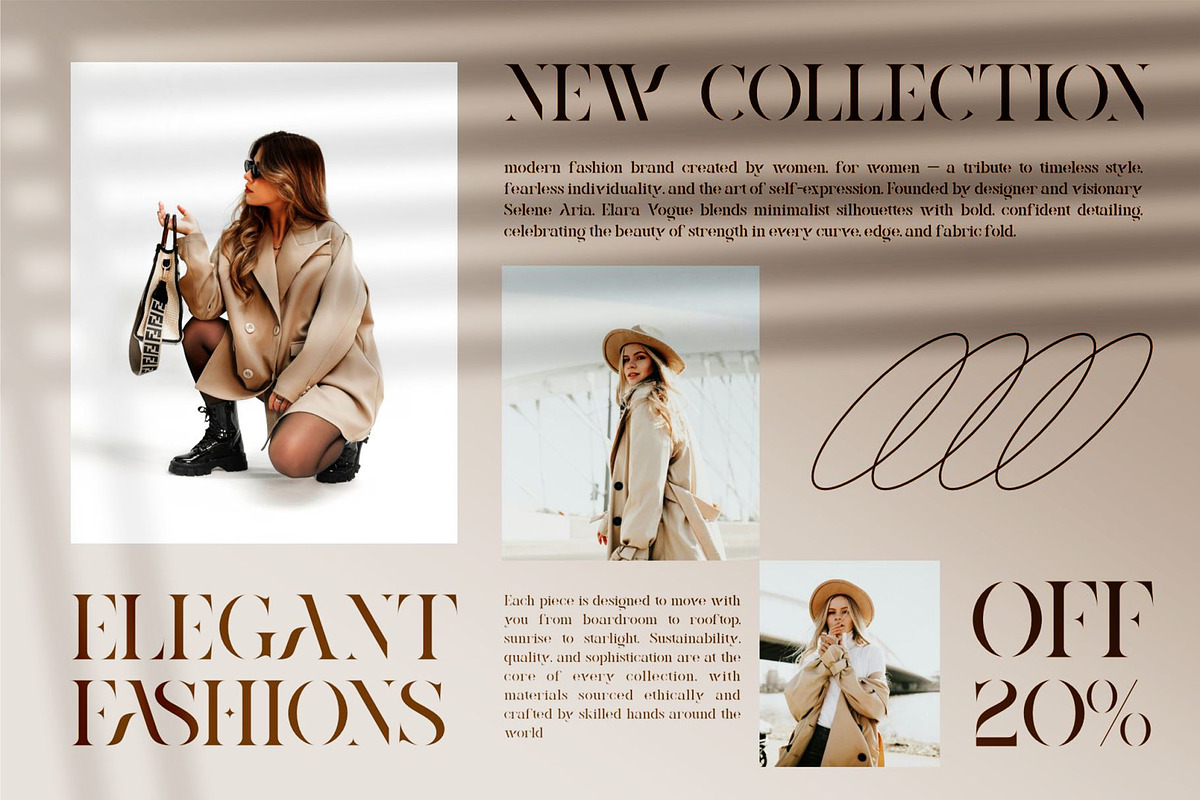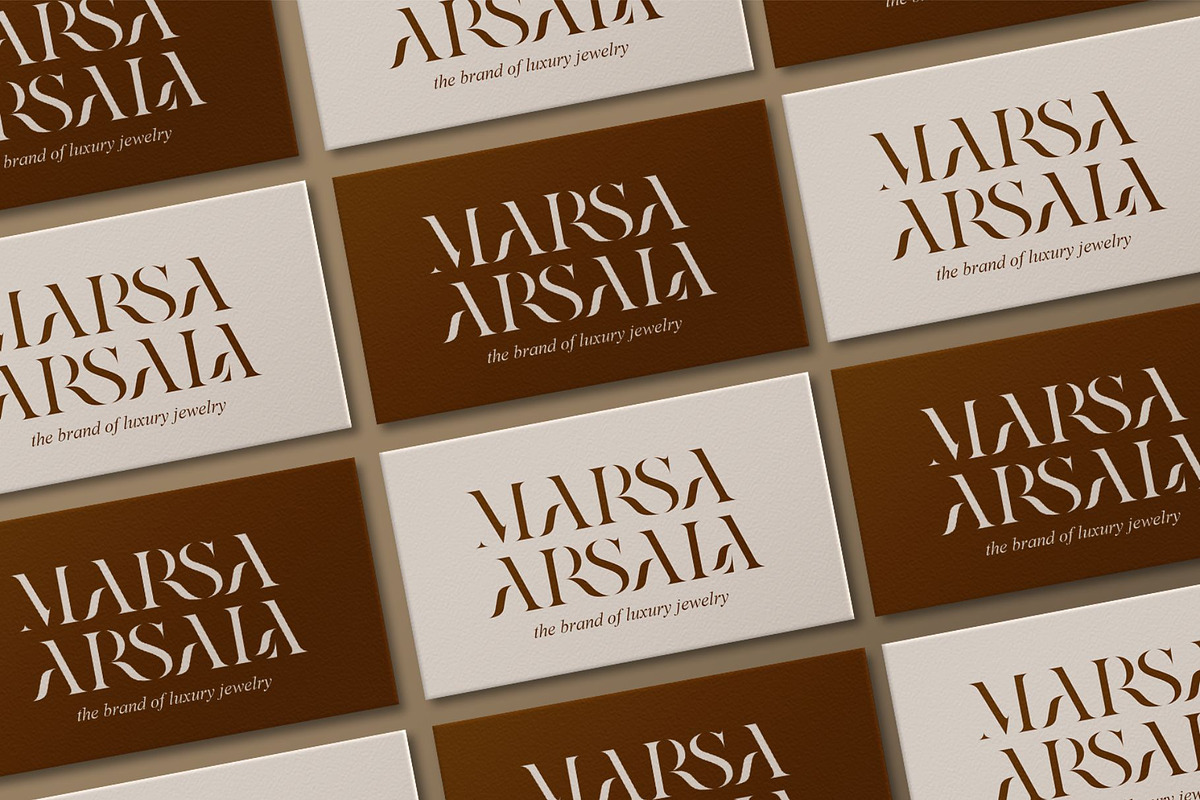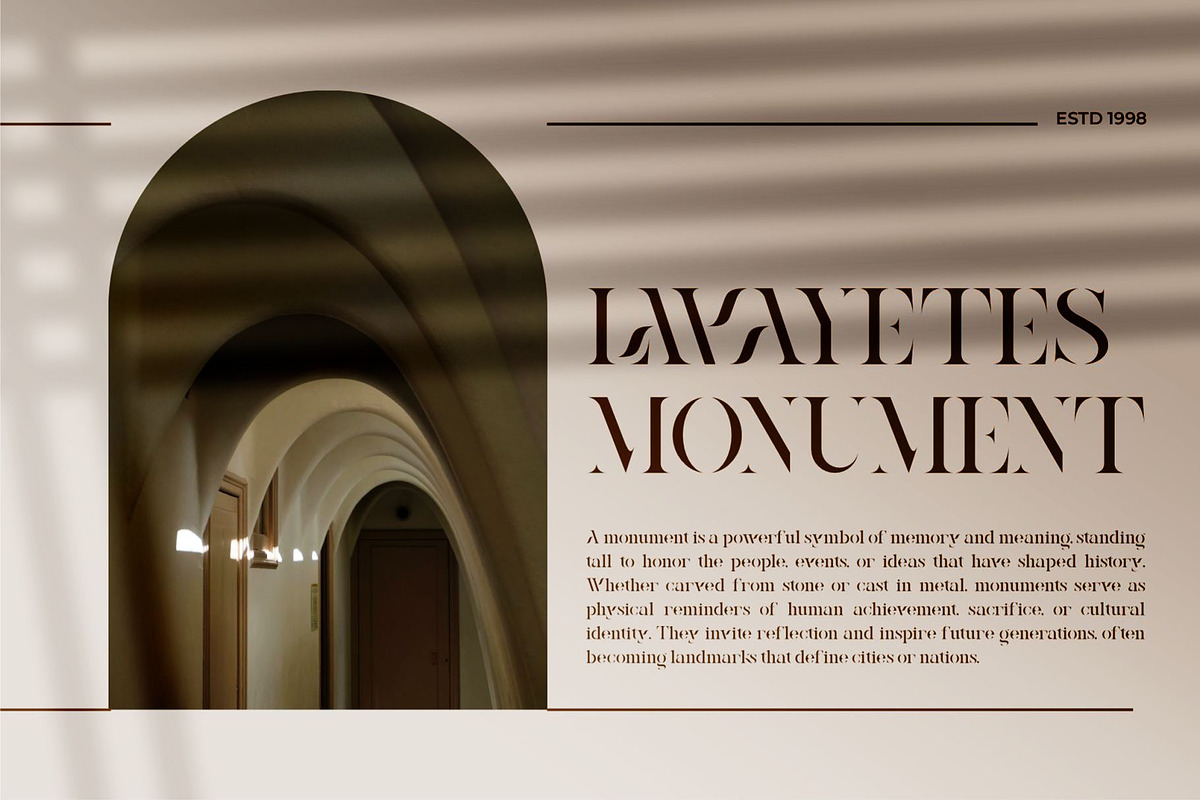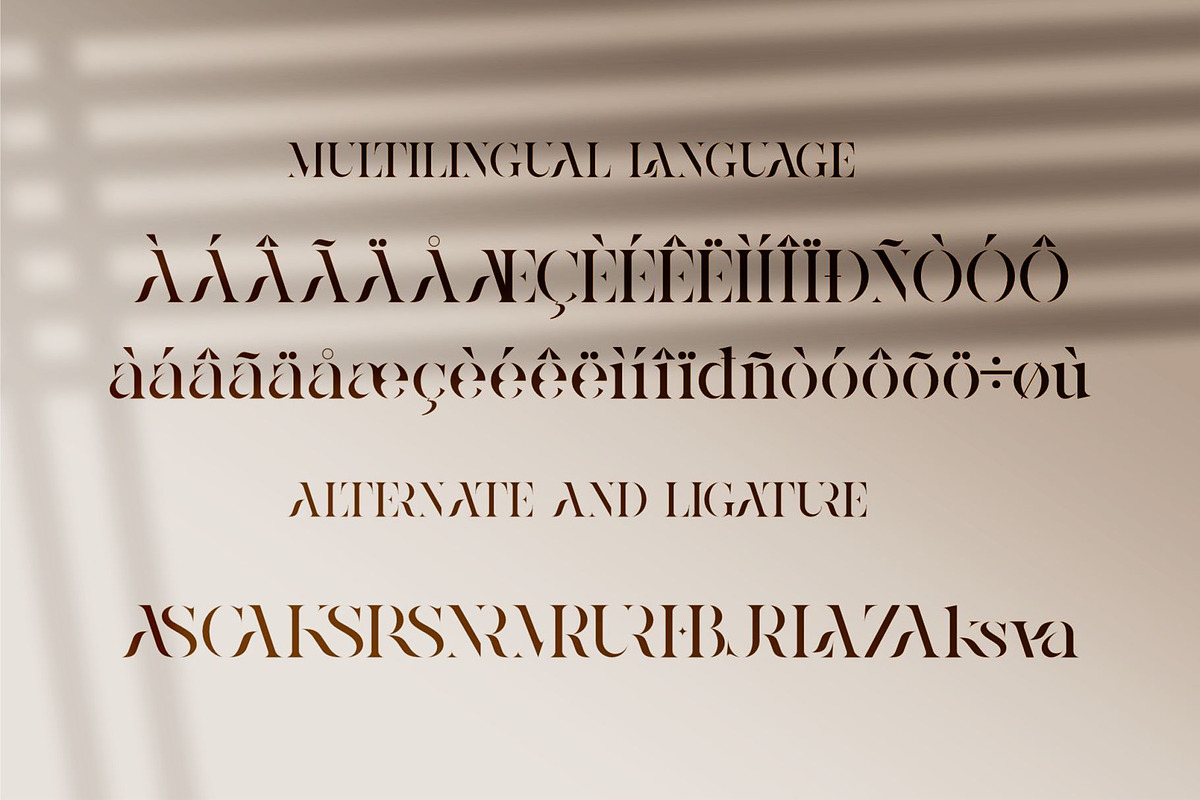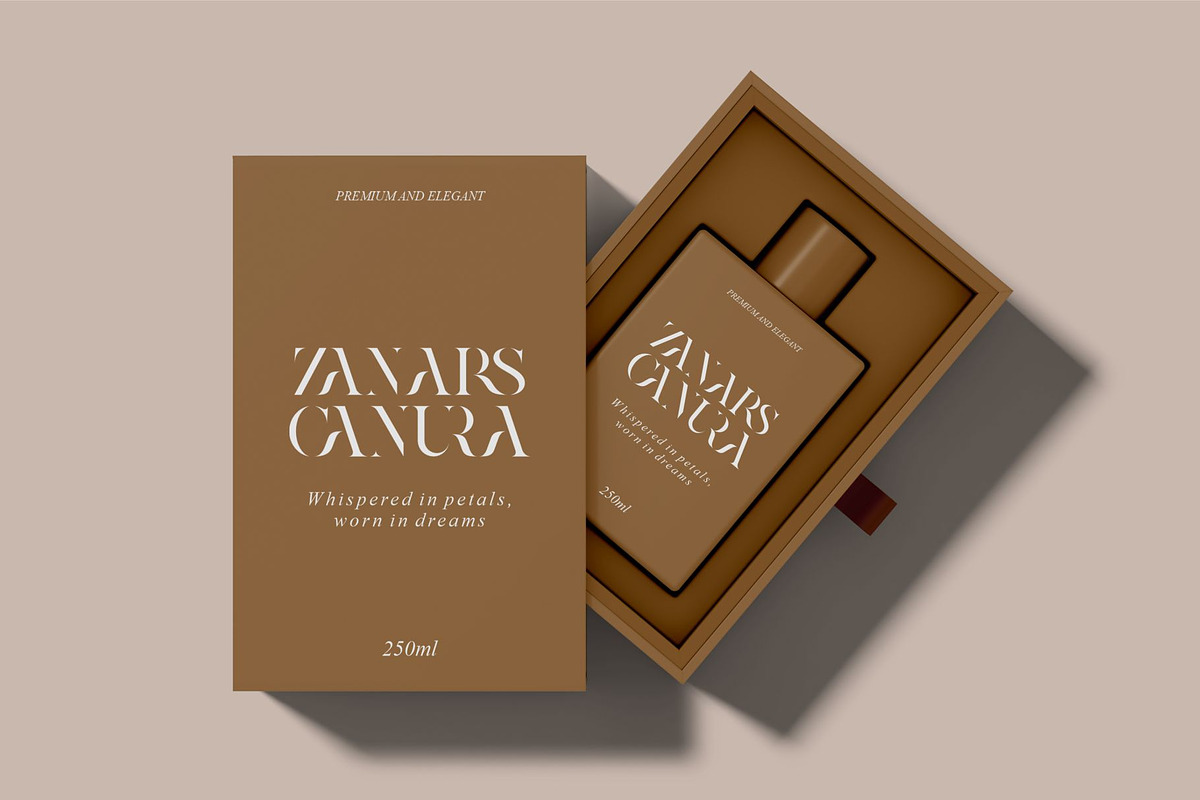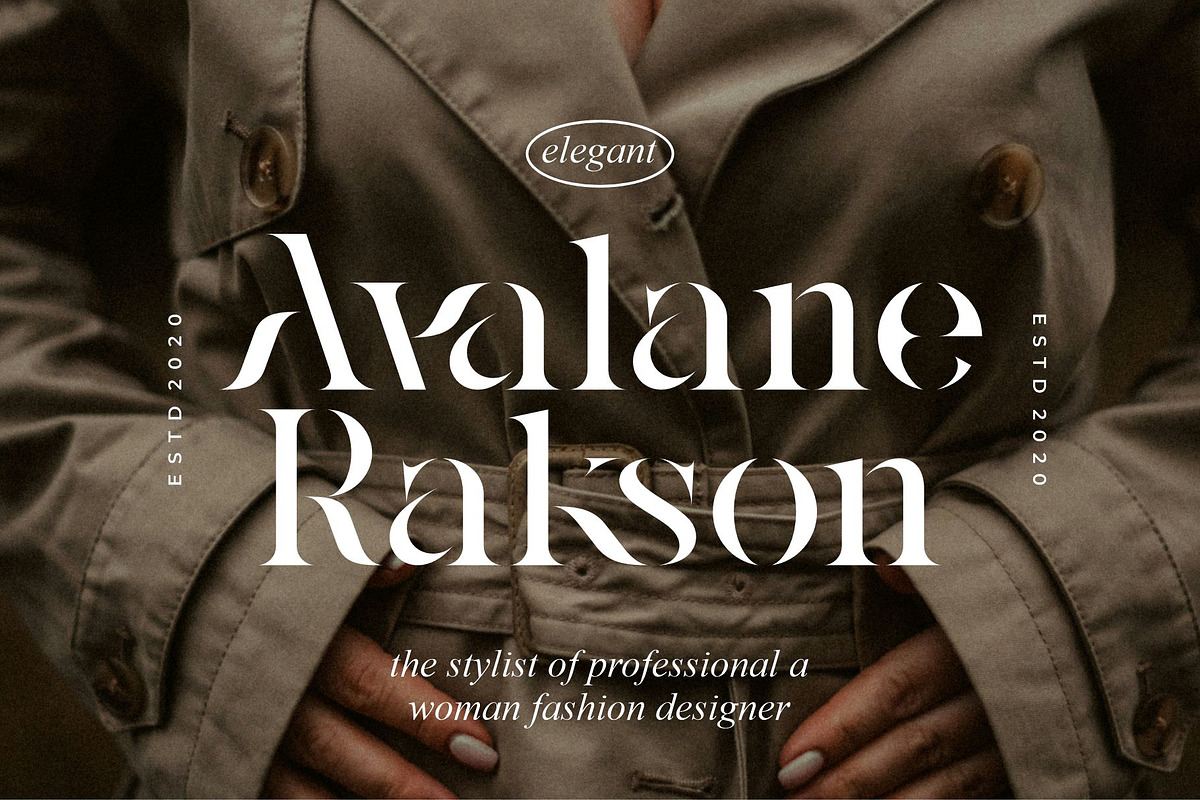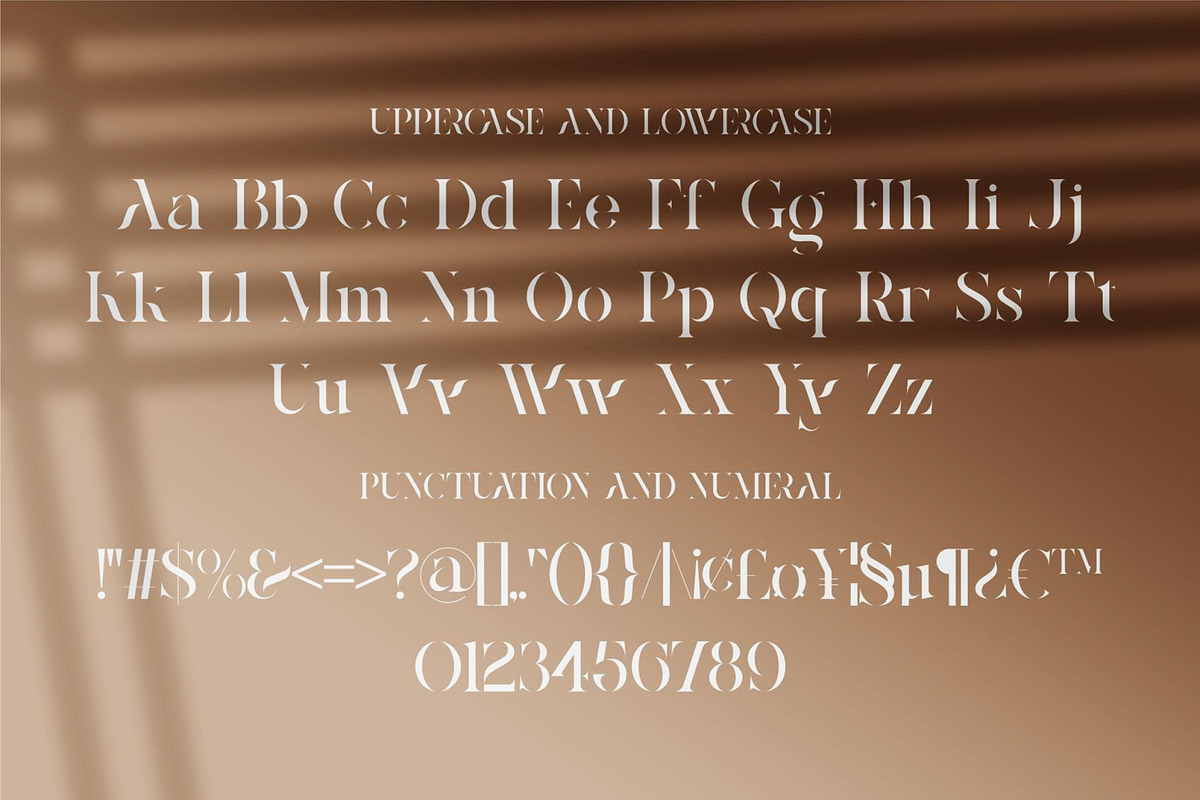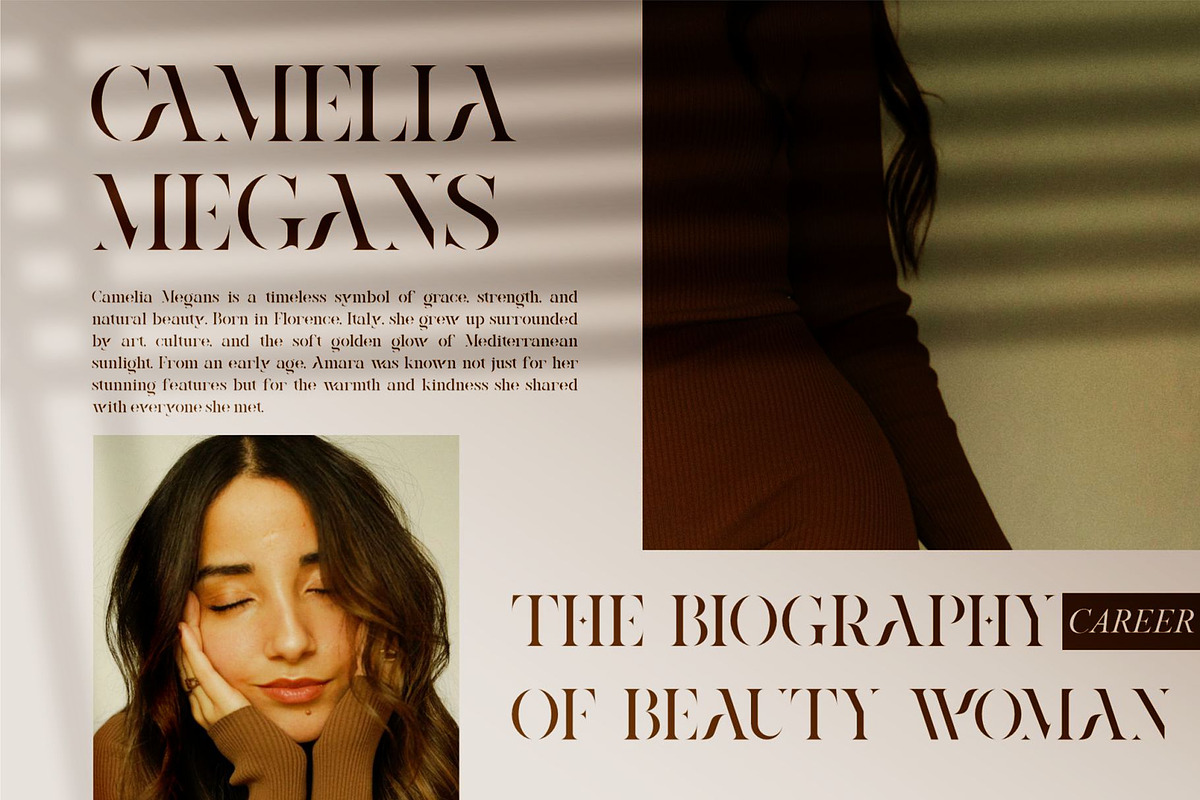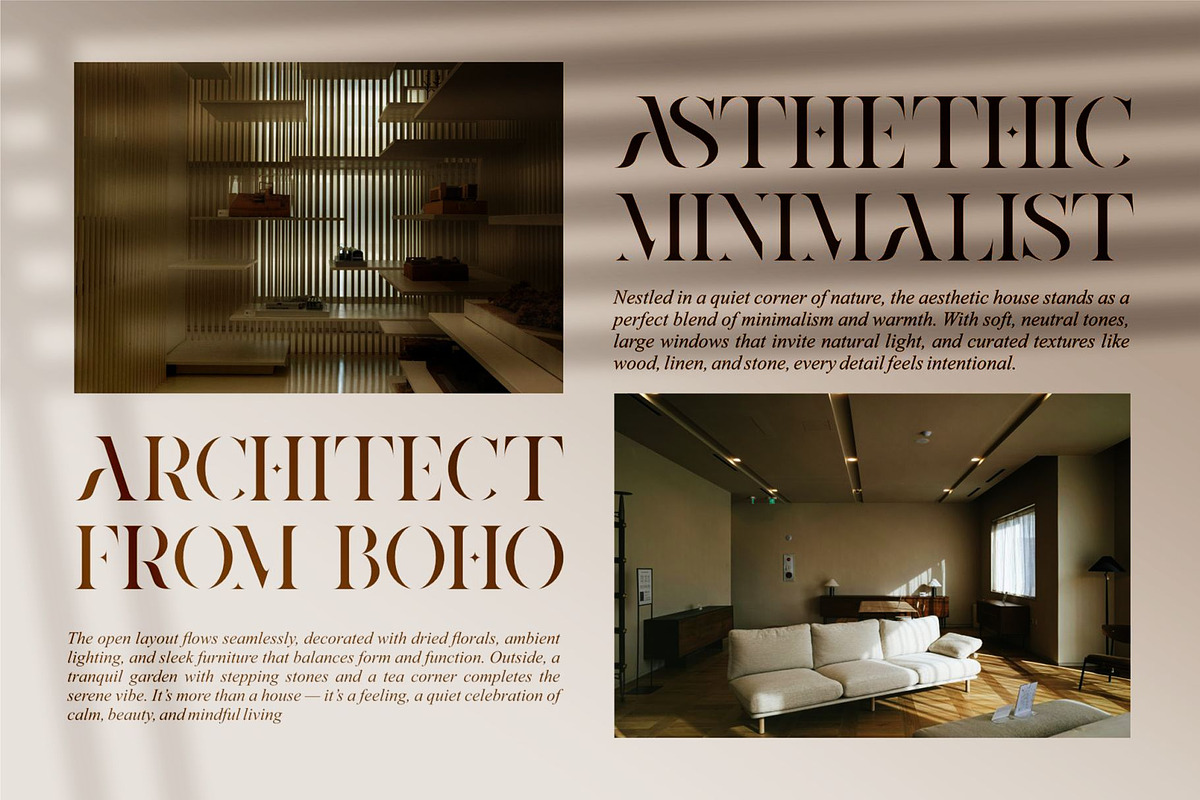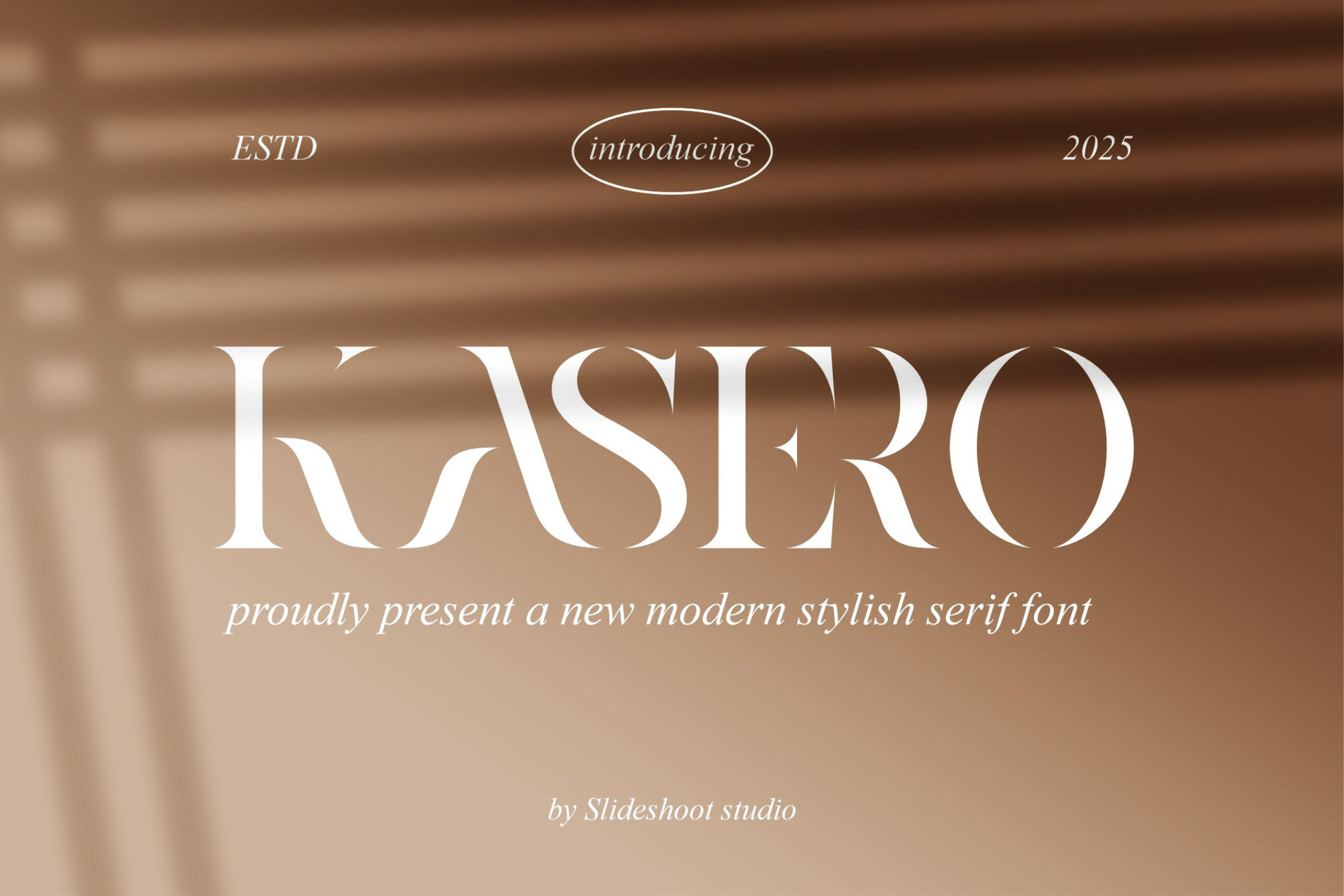
Kasero || Stencil Serif Font
Kasero Stencil Serif is a modern and classy font type for all branding and logo designs. This modern and classy Serif font has a beautiful character. This font is suitable for invitation card designs, cool logos, movie titles, movie names, business cards, book titles, brand names, and various other designs. Kasero Stencil Serif is a smooth serif font that exudes sophistication and the moment. Its stylish ligatures make this font a perfect partner for any project.